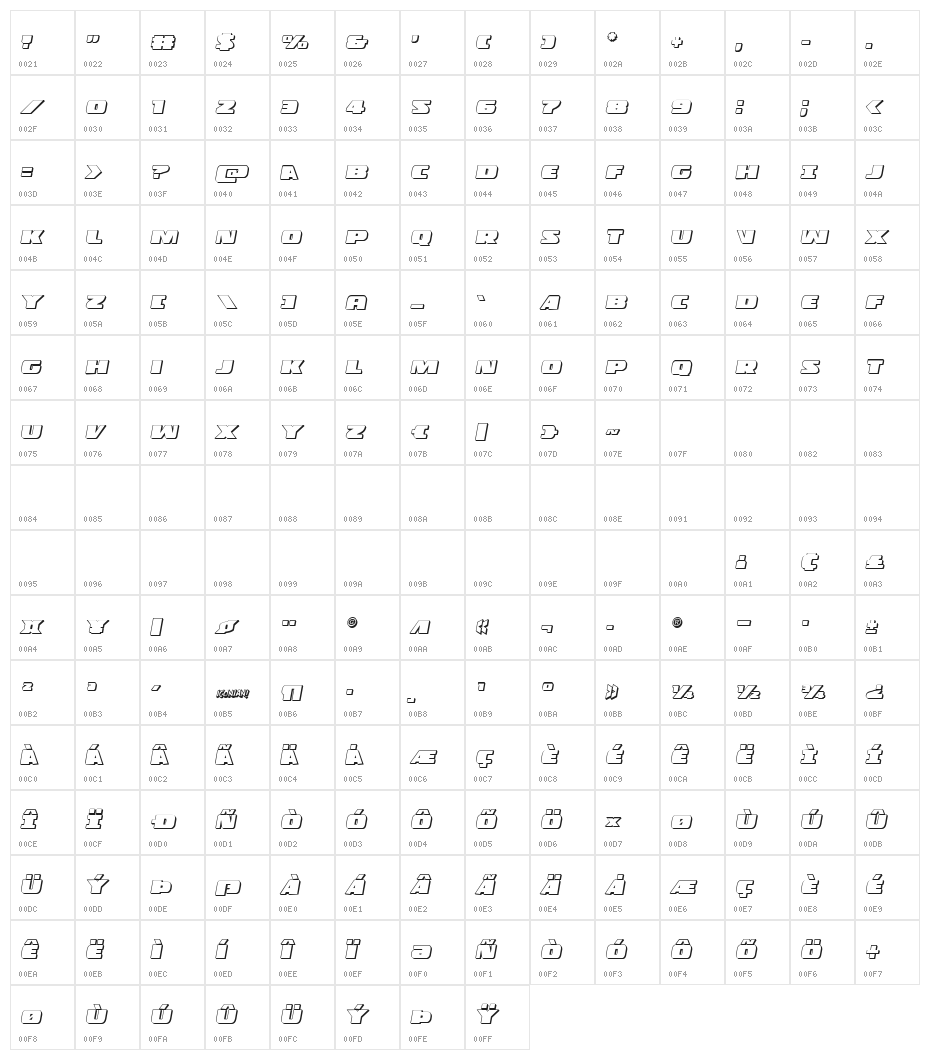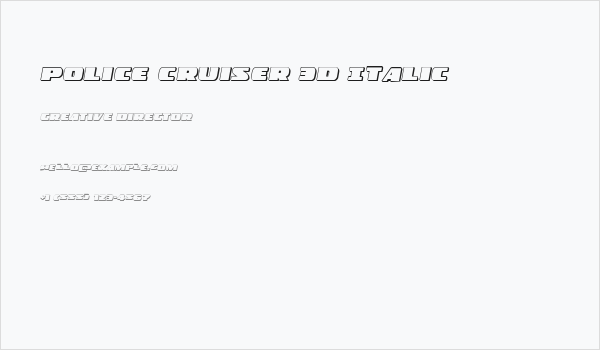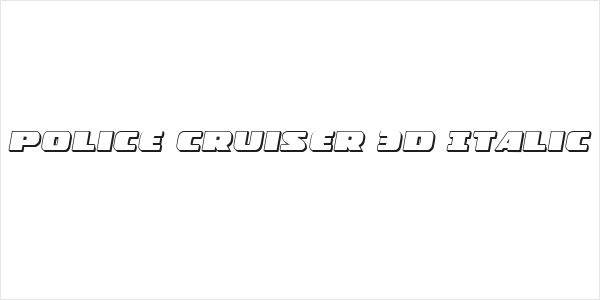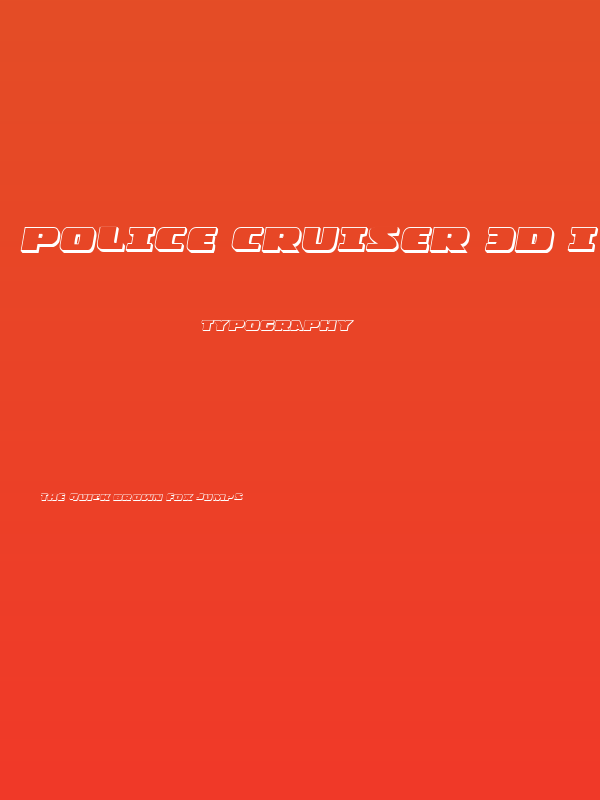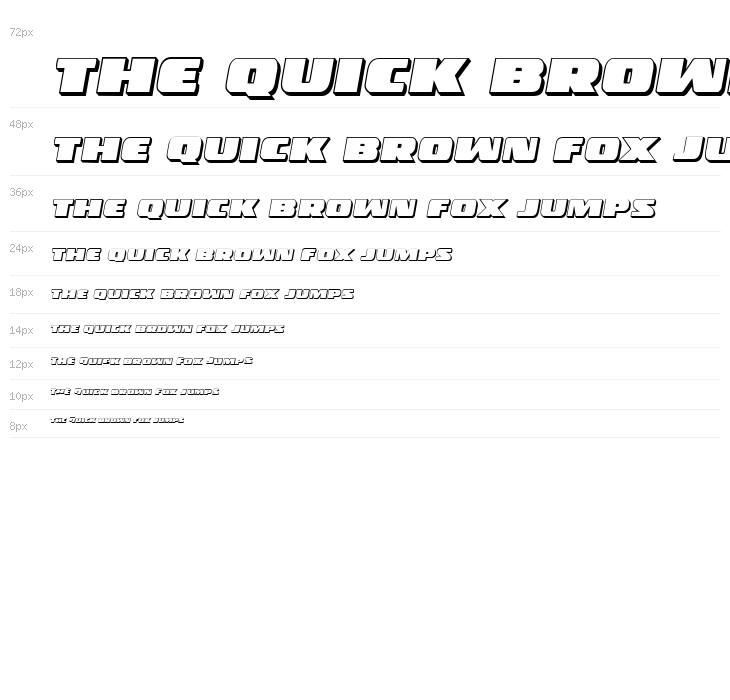
Police Cruiser 3D Italic Font
Police Cruiser 3D Italic Description
This font features a bold, three-dimensional style with a distinct italic slant, giving it a dynamic and futuristic appearance. The characters are outlined, creating a shadow effect that enhances the 3D illusion. The uppercase and lowercase letters maintain a consistent structure, with angular edges and a robust presence. The numerals and special characters follow the same design principles, ensuring uniformity across all glyphs. This font's unique style makes it stand out, ideal for projects that require a strong visual impact.
| Overall Style | Futuristic, Dynamic |
| Proposed Projects | Ideal for video game titles, sci-fi movie posters, sports team logos, and any project needing a bold, futuristic look. |